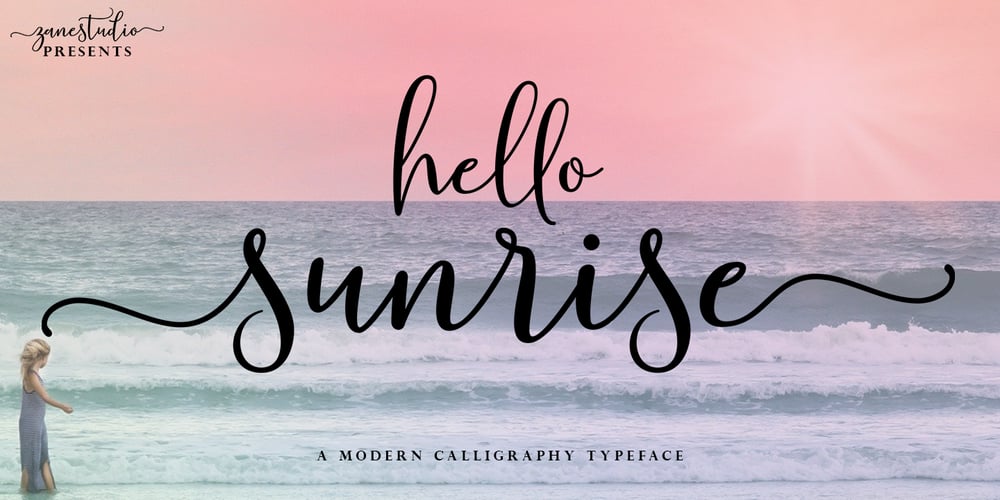
Hello Sunrise Script Font Family was designed by Mur Zani and published by Zane Studio. Hello Sunrise Script contains 1 styles and family package options. Hello Sunrise Script is a modern signature font. It’s perfect for every signature, business card design, branding project, product packaging, quotes, logos, book covers, and many other great projects. With a combination of elegant and casual styles, this font contains the complete set of lower and uppercase letters. Features: Alternative styles and ligature A-Z Character Set Numbers and Punctuation (OpenType Standard) · Accent (Multilingual Character). With an elegant and casual design, I hope this font can meet your design needs.